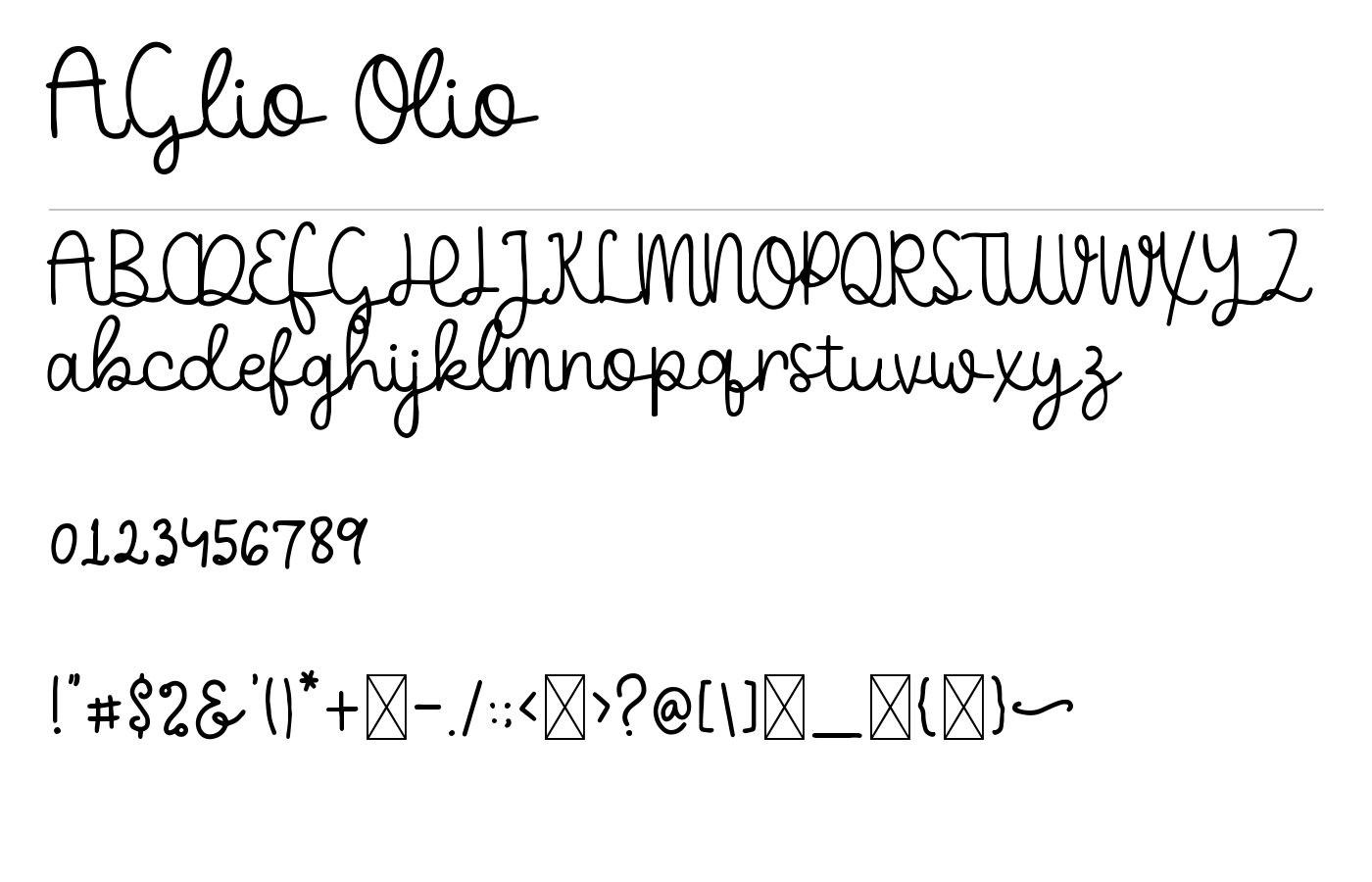
AGlio Olio is a playful and informal handwritten script font with thin, flowing lines and a casual, friendly feel. Its tall, narrow letterforms and smooth curves give it a light, airy appearance, making it great for creative and personal projects like invitations, branding, or social media graphics that want to convey warmth and approachability. This font works well where a stylistic, human touch is desired without losing readability.
AGlio Olio Font
About AGlio Olio Font
| Font family | AGlio Olio Font |
| Designer | Mega Ardelia |